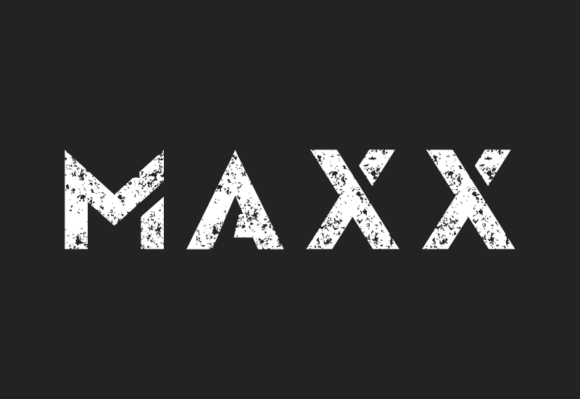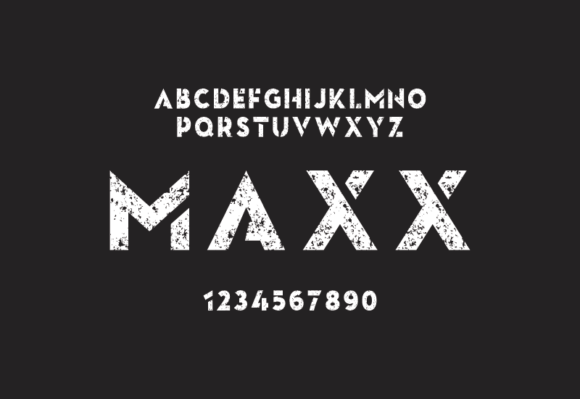
Introduction to Maxx Font
Maxx Font exudes a raw, edgy aesthetic perfect for adding character to your design projects.
Its clean lines and bold strokes create a distinctive visual impact, while the subtle grunge texture adds a touch of authenticity This versatile typeface is ideal for making statements in logos, headlines, or any design element that demands attention.